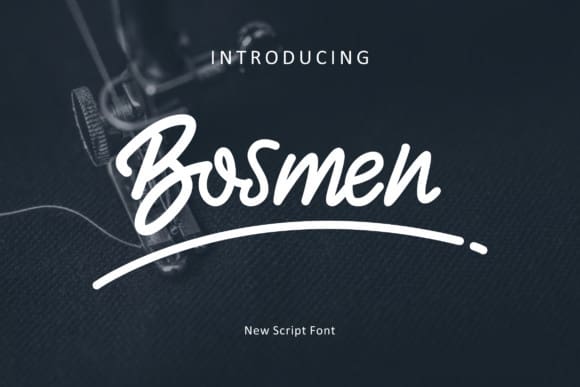
Bosmen Script Font
Bosmen Script Font is a bold and authentic script font. The font is suitable for any branding project like logo, t-shirt printing, sport, and many more. It will look outstanding in a wide range of contexts.